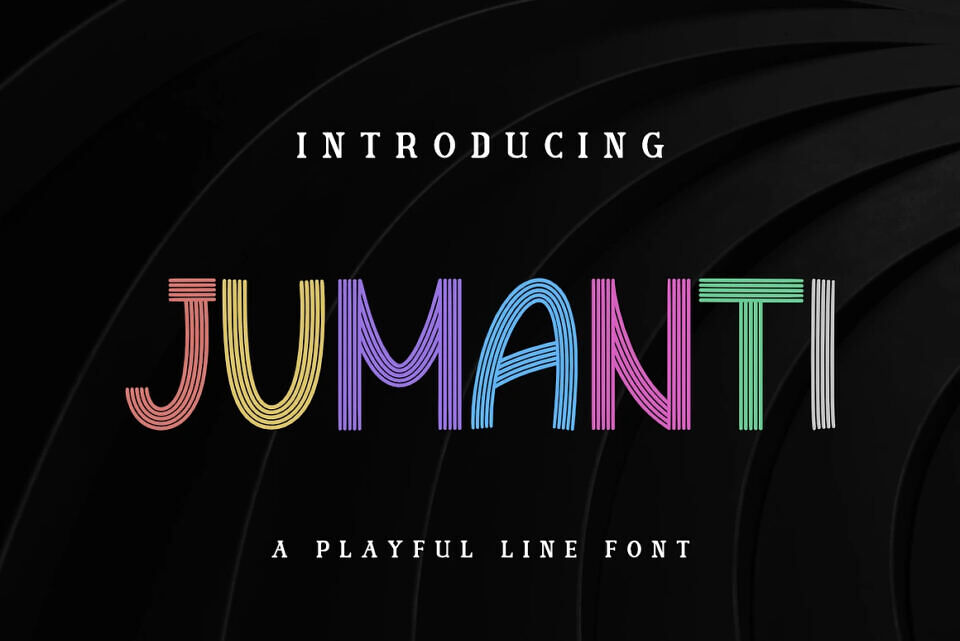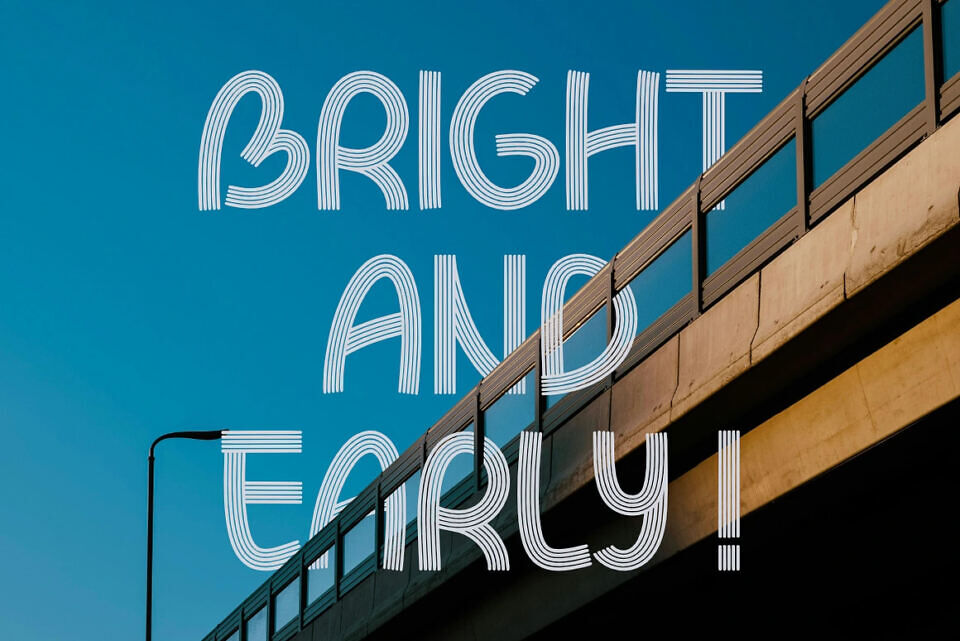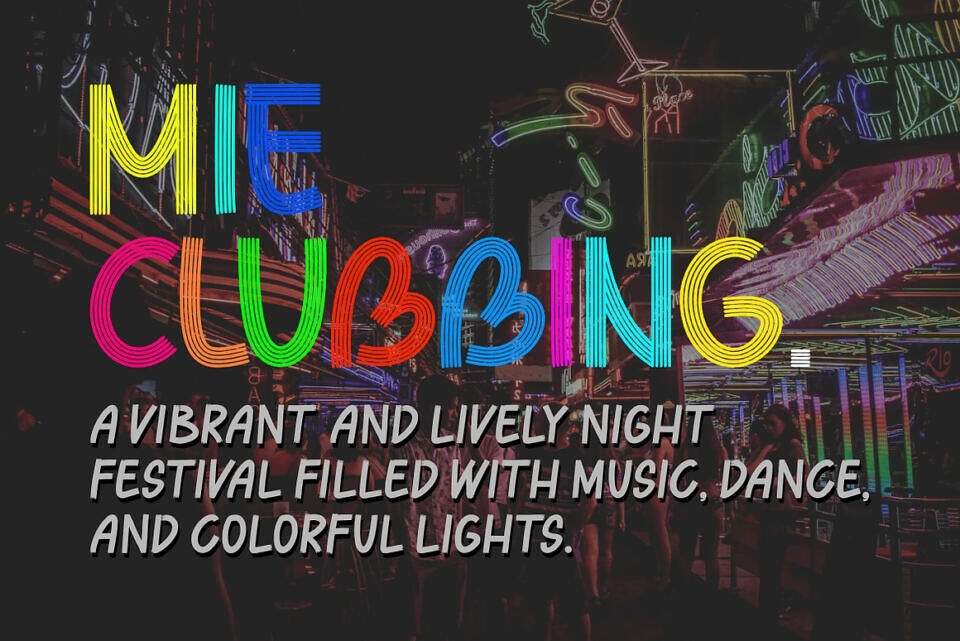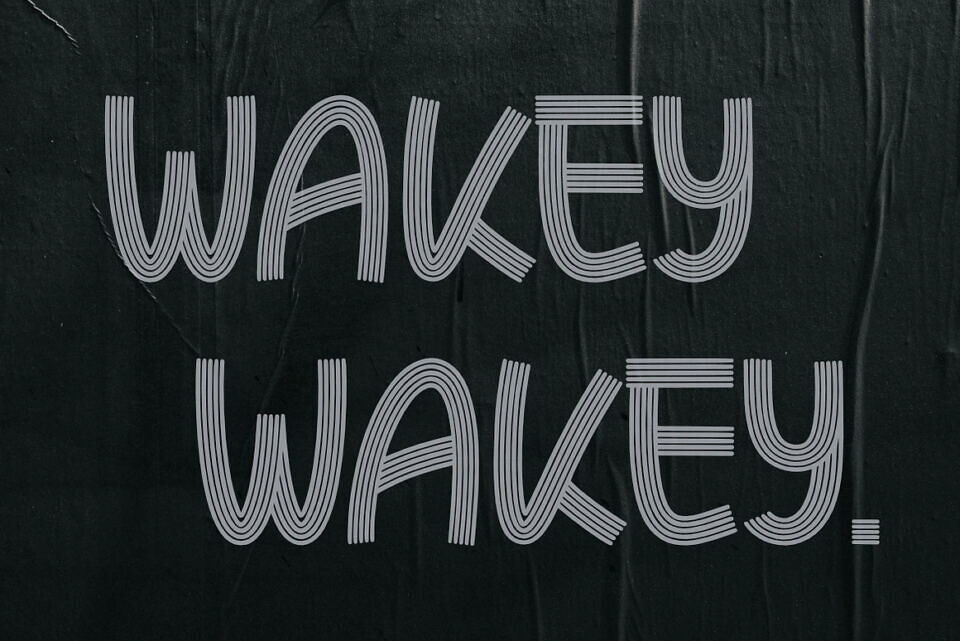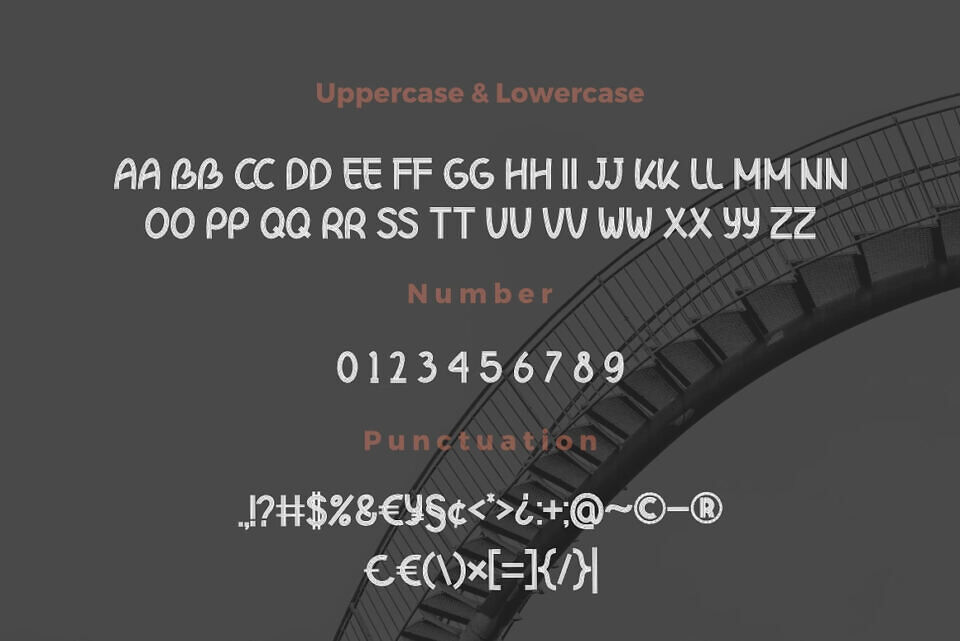
Jumanti is a fun and playful multiline font that stands out with its unique style. Perfect for adding a touch of creativity to your designs, it’s great for titles, posters, and more. With its playful lines, Jumanti brings a sense of joy and energy to any project.